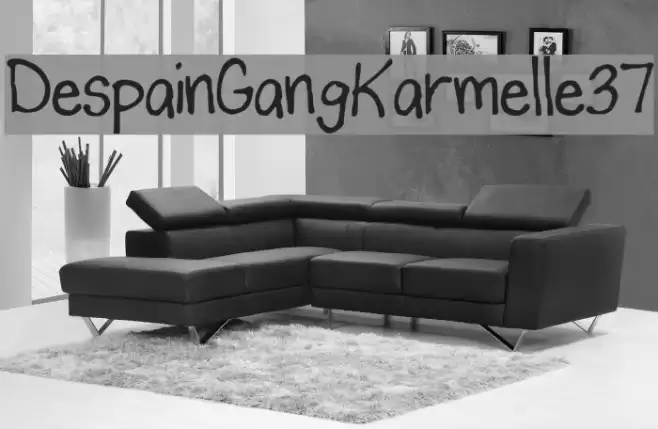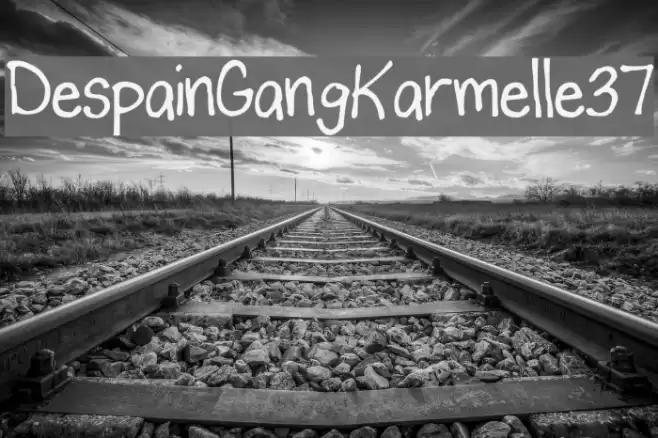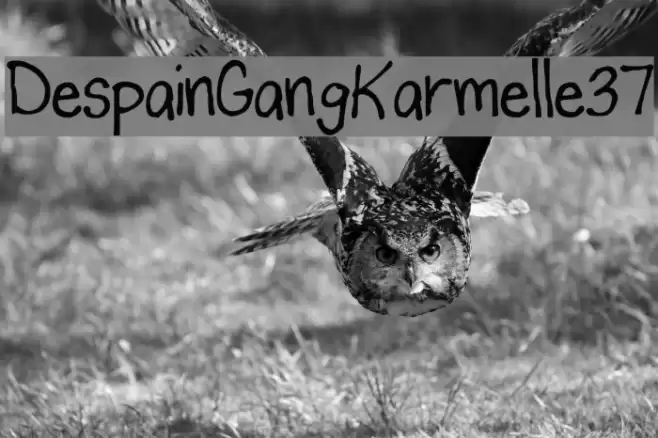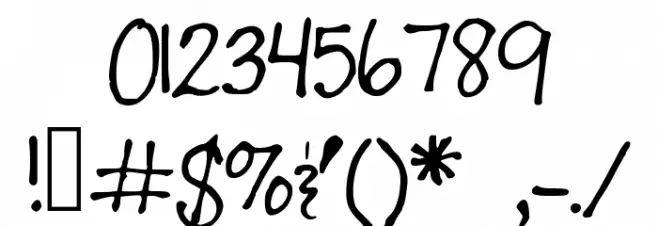
DespainGang_Karmelle_37 Font
DespainGang_Karmelle_37 Description
This font features a playful and casual handwritten style, characterized by its irregular and slightly uneven strokes that give it a personal and informal feel. The letters are rounded with a consistent baseline, yet they exhibit a charmingly imperfect quality that adds to their appeal. The uppercase and lowercase letters maintain a cohesive look, while the numerals and special characters complement the overall design. This font's organic and friendly appearance makes it suitable for projects that require a touch of personality and warmth.
A playful, casual handwritten font with irregular strokes and a friendly feel from Handwritten fonts.
- Proposed Projects: Ideal for greeting cards, children's books, casual branding, and social media graphics.
- Overall Style: Casual
- Use Case: Headlines, Informal text, Creative projects